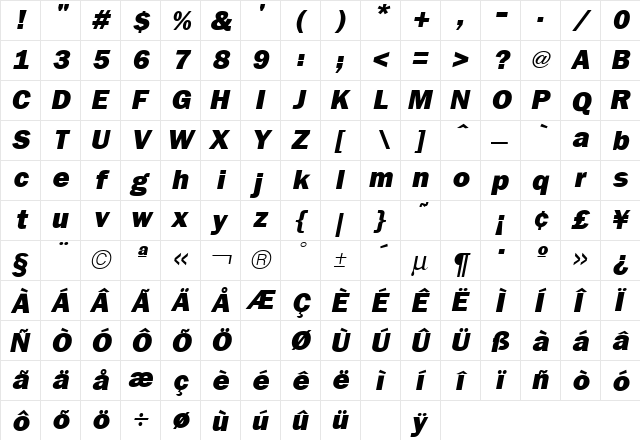
Franklin Italic
Design Context for Franklin Typeface
Franklin is a composed and adaptable typeface that performs quietly and consistently across a wide range of design contexts. Its italic angle brings a sense of urgency and motion to the letterforms.
Pro Tip: Use Franklin for emphasis, pull quotes, and subheadings where its slanted energy can add rhythm to the layout.